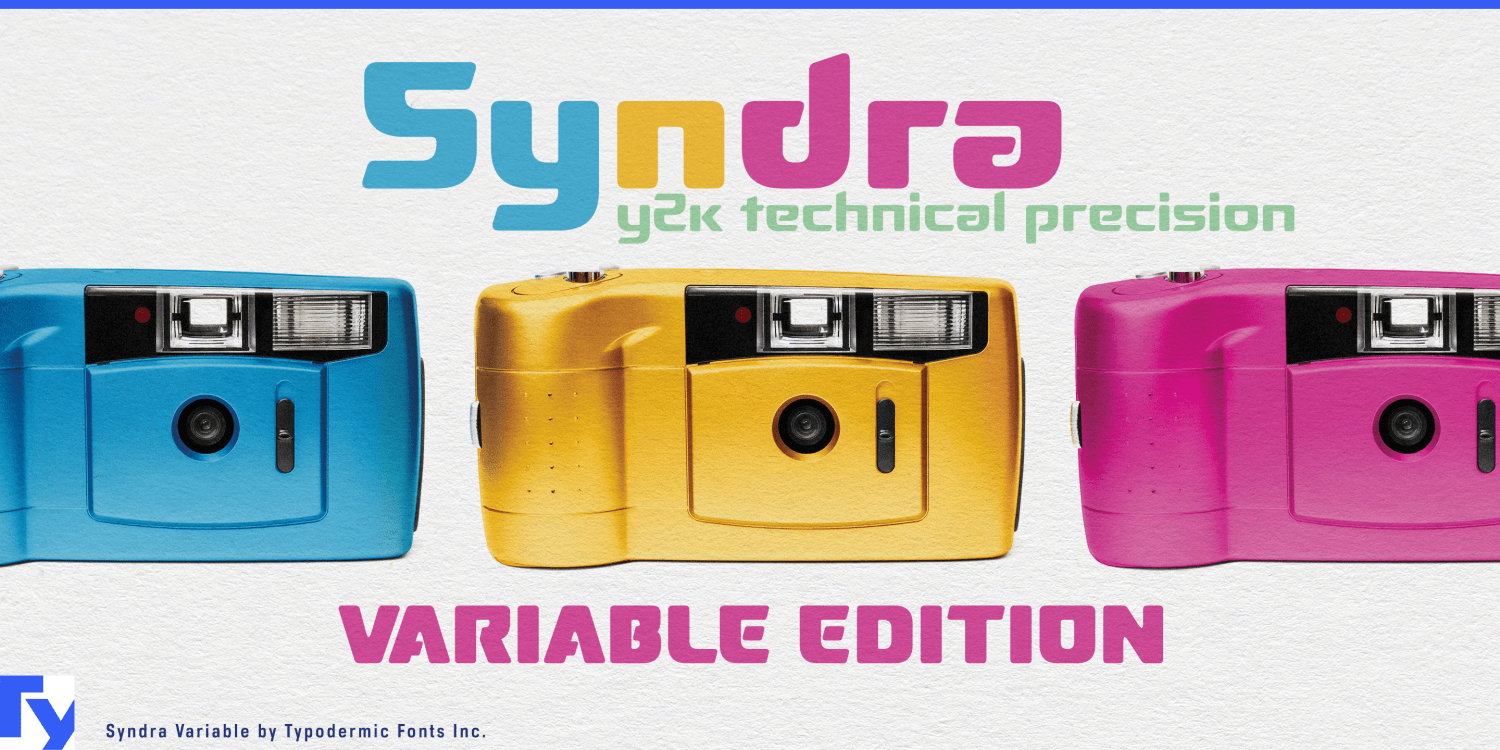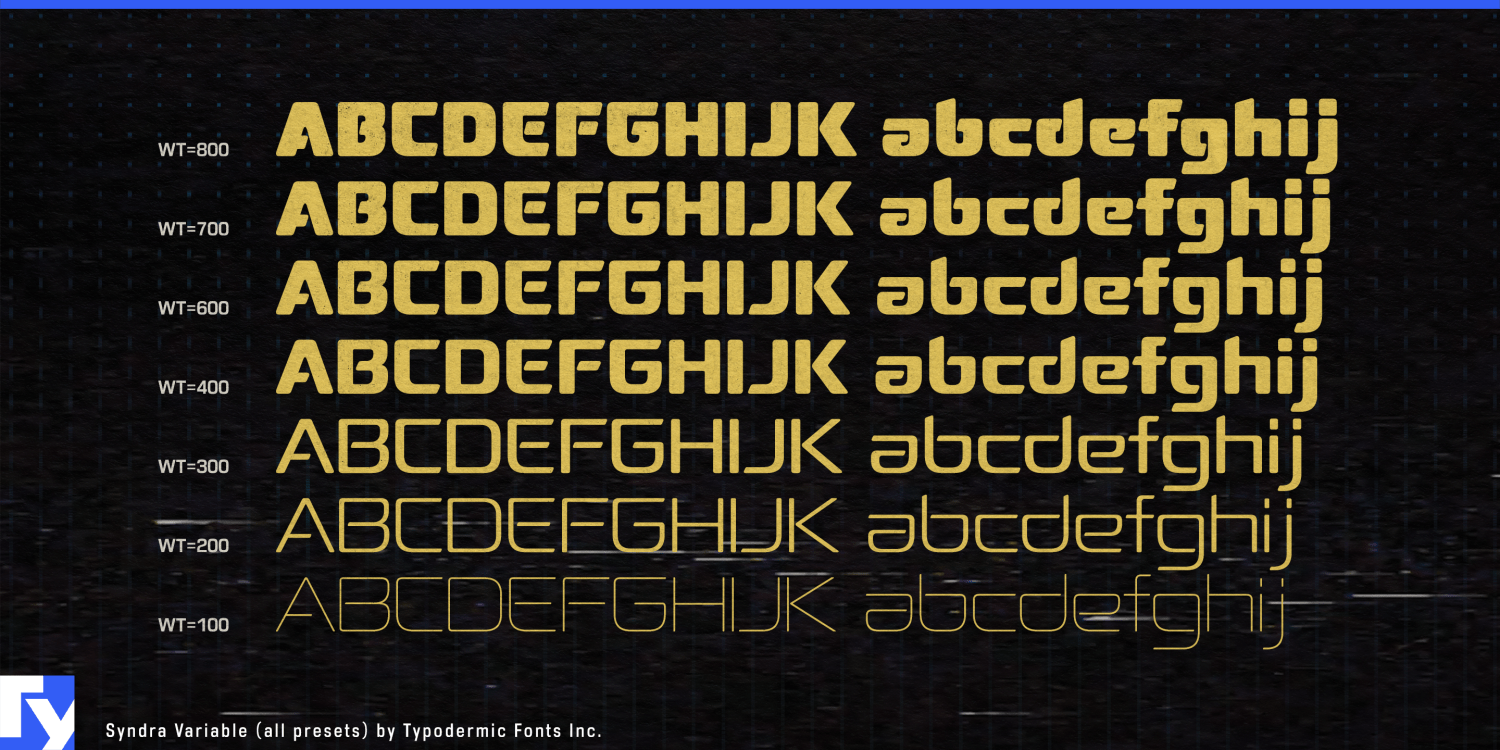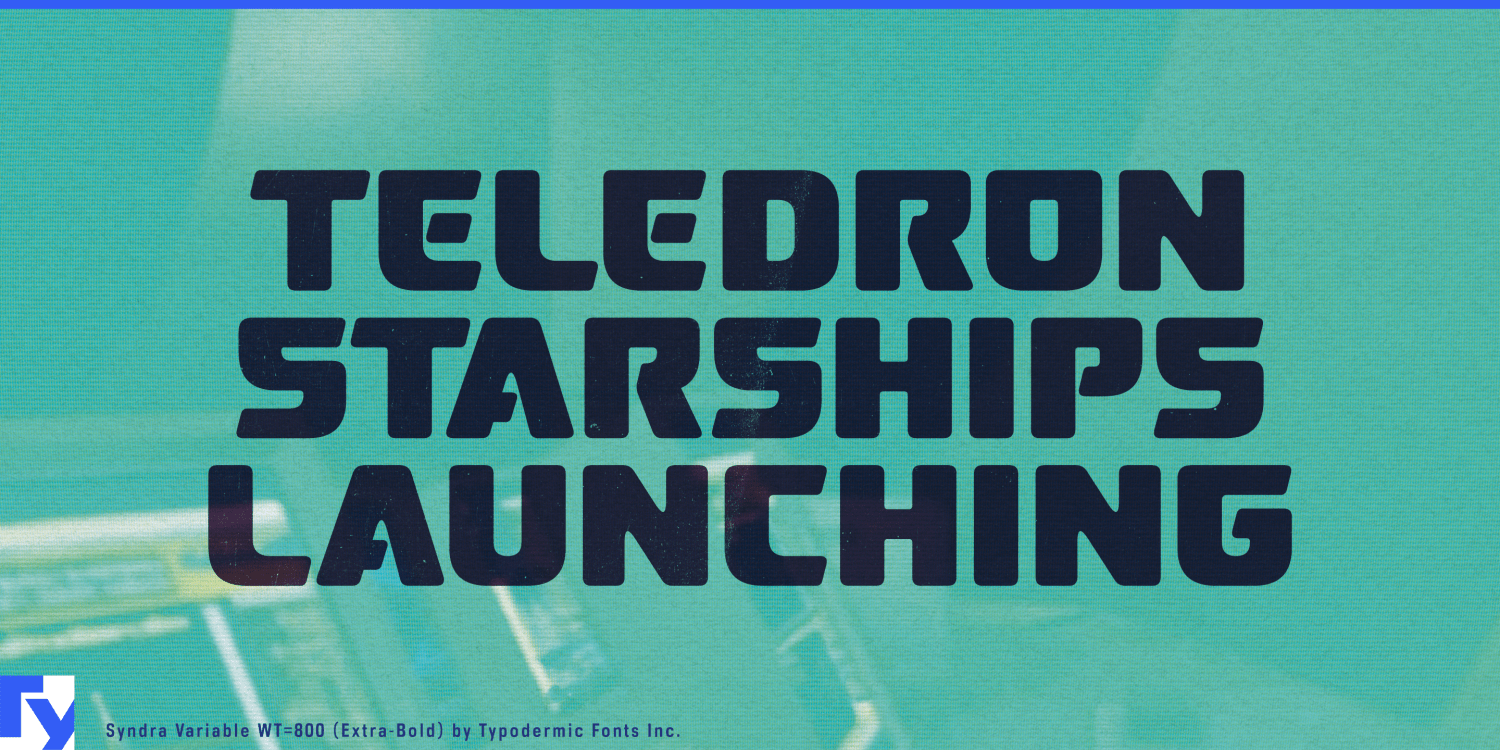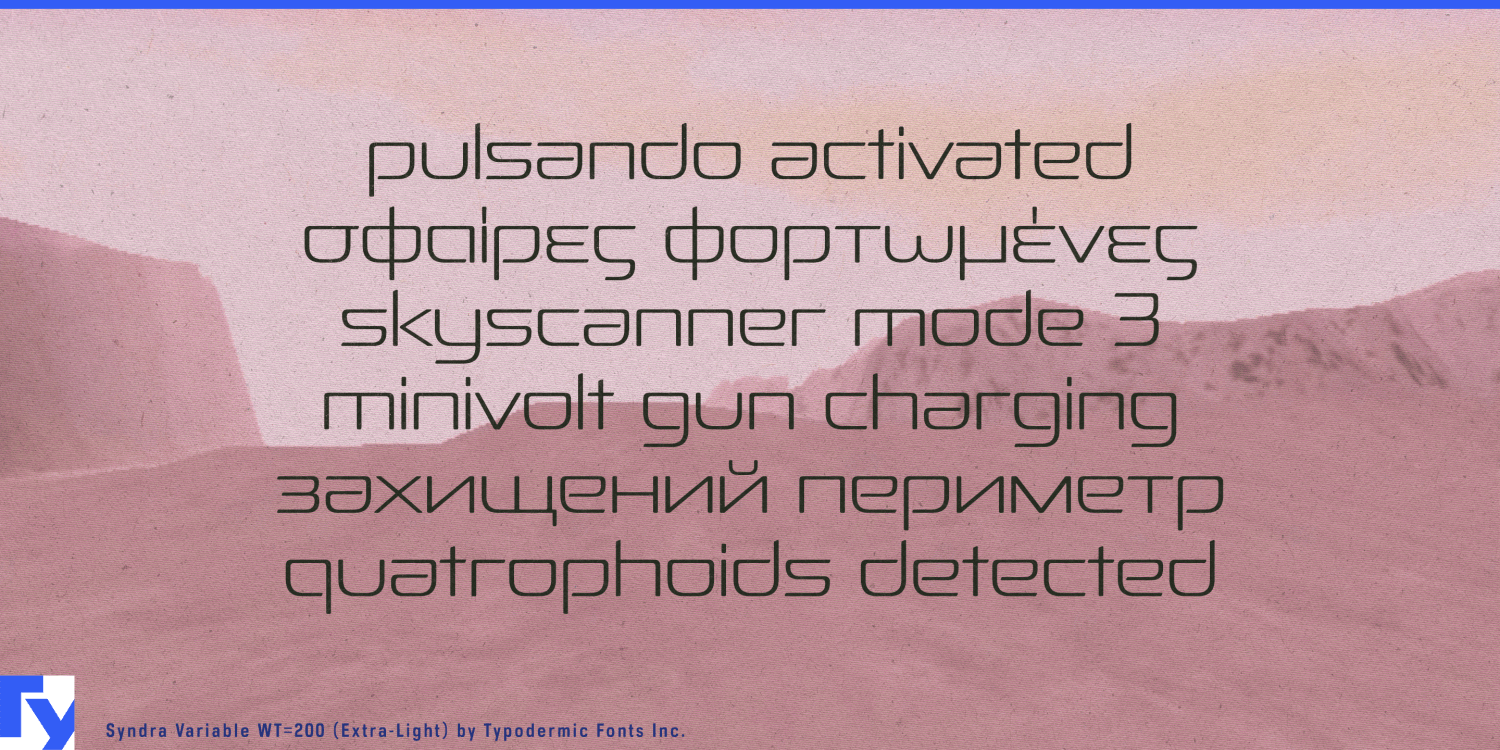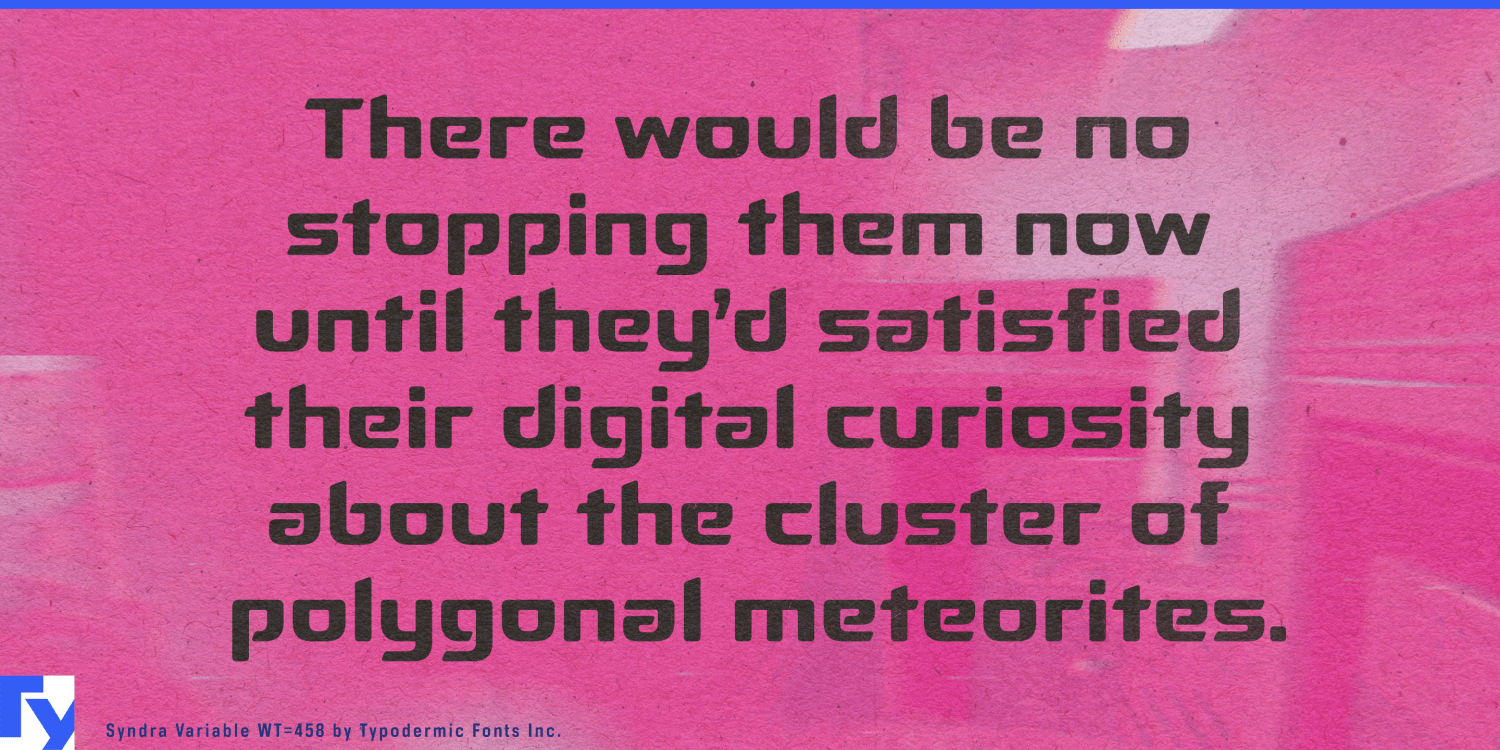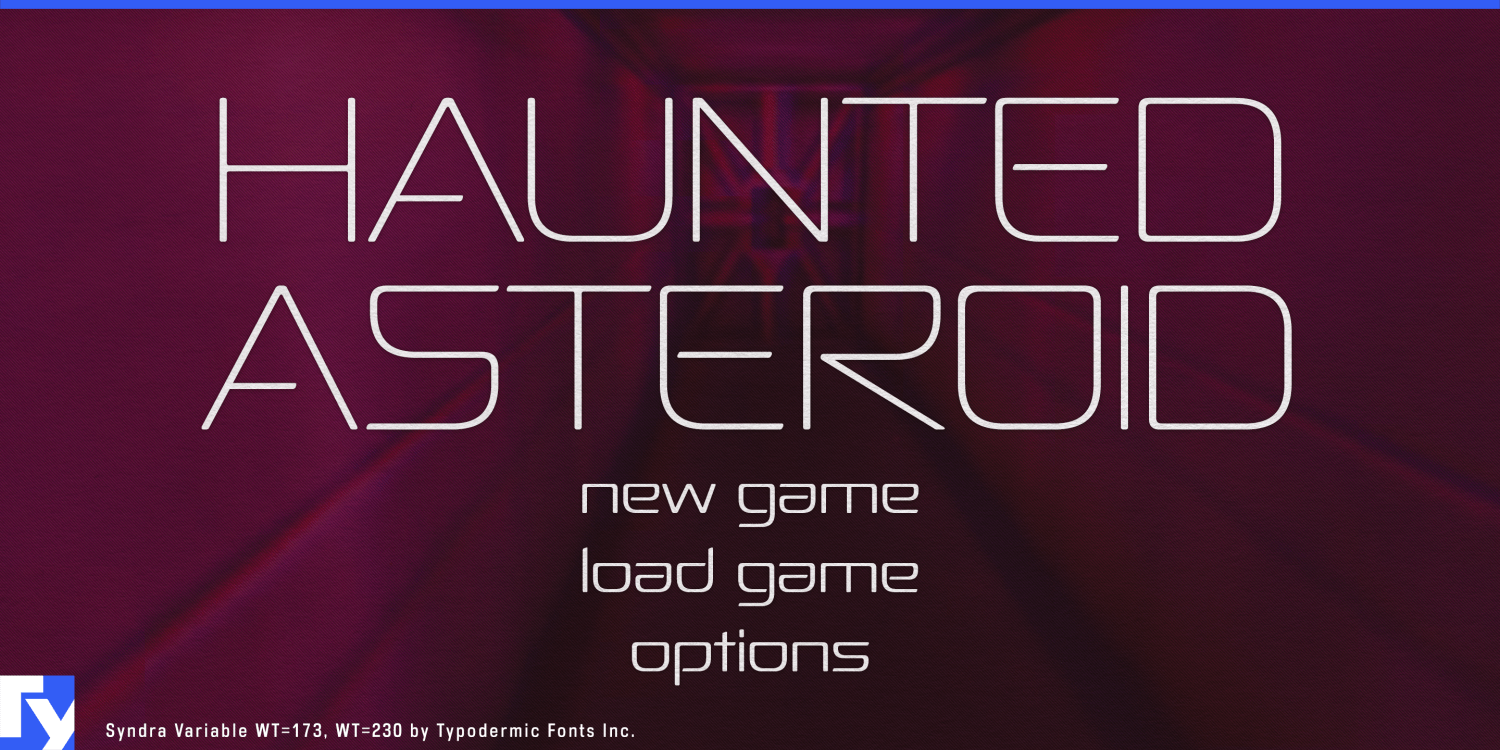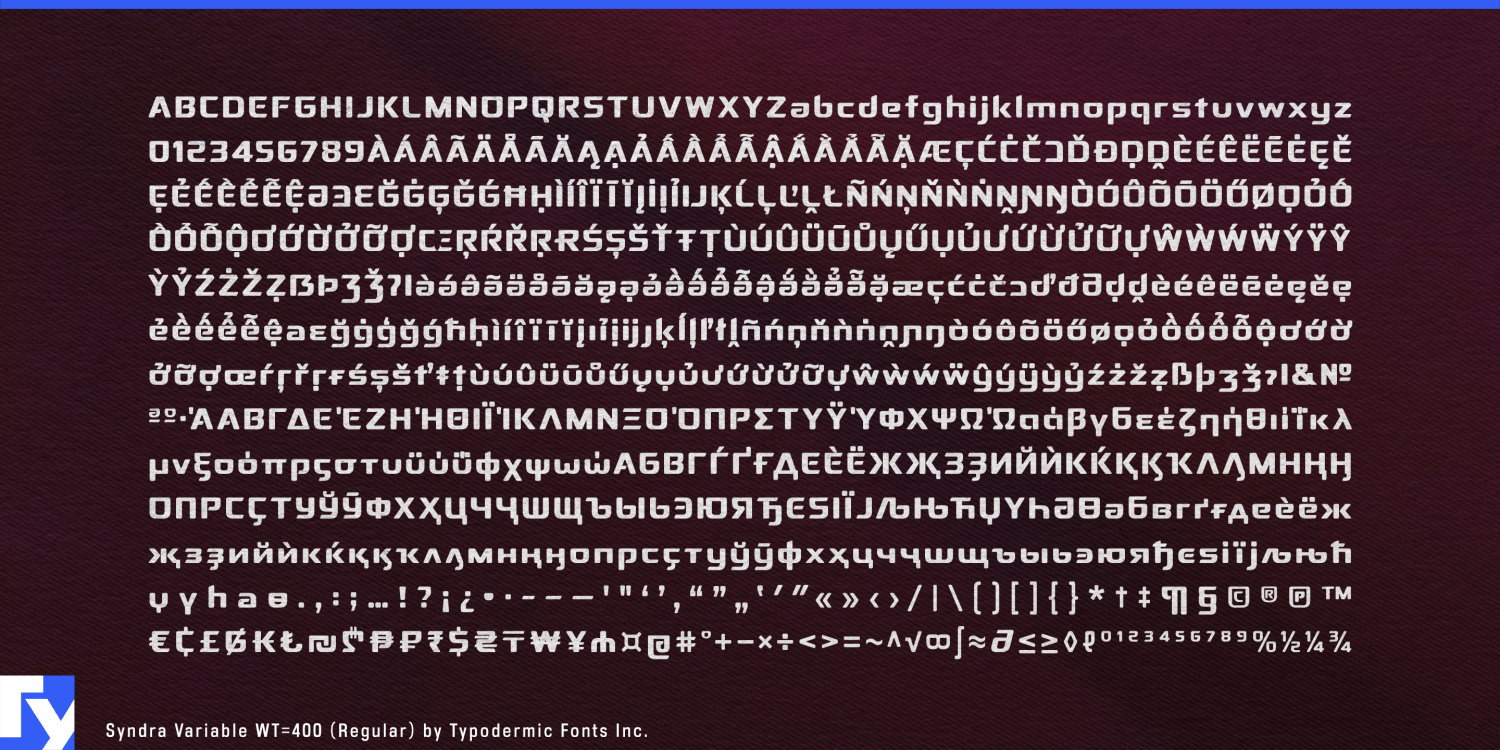
Syndra Variable
Font Family by Typodermic
Syndra Variable is a precision-engineered geometric sans-serif with a fully adjustable weight axis, giving you total control over its voice and presence. Slide seamlessly from whisper-thin elegance to commanding boldness—and discover every subtle variation in between. This flexibility allows you to fine-tune typography for any context, from sleek interface elements to attention-grabbing headlines.
Its design balances crisp geometric construction with softened details, creating letterforms that are confident yet approachable. Whether scaled large for impactful branding or set small for dense data displays, Syndra Variable maintains clarity and visual balance across the entire weight spectrum. With advanced features—including fractions, ordinals, and a wide array of currency symbols—Syndra Variable handles technical content with ease. Its extensive language support spans Latin-based European languages, Vietnamese, Greek, and most Cyrillic scripts, making it ready for global communication.
Optimized for modern workflows, Syndra Variable is especially effective in responsive and adaptive design, where typography must adjust fluidly across devices, resolutions, and media. It’s a single, versatile toolkit that replaces multiple static fonts, giving designers the freedom to match form to function without compromise.